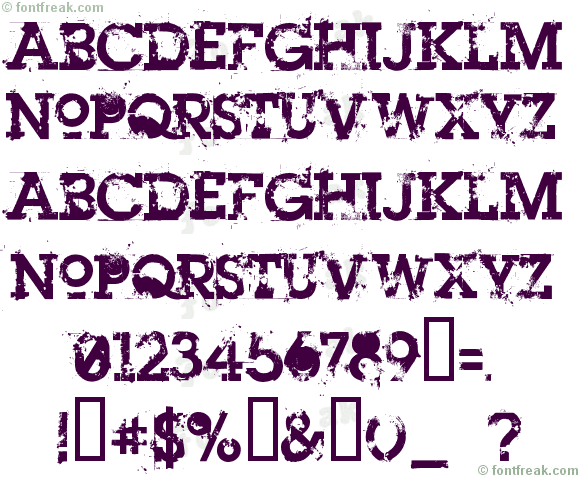
Heroin 07
About Heroin 07
Heroin 07, designed by Clement Nicolle, is a striking display font that falls into the category of decorative typefaces. Characterized by its bold, grunge-inspired aesthetic, this font features a unique combination of uneven stroke weights and a distressed texture that gives it an edgy, urban feel. The letters exhibit a mix of solid and fragmented forms, creating a dynamic visual experience that captures attention. With generous spacing between characters, Heroin 07 ensures readability while maintaining its artistic flair, making it an excellent choice for various creative projects.
This font is particularly well-suited for use cases such as music album covers, where its rebellious nature can resonate with audiences, or for promotional materials for alternative events, allowing brands to convey a sense of authenticity and individuality. It can also shine in fashion lookbooks, where its unique style can enhance the overall aesthetic. Additionally, Heroin 07 can be a great choice for posters and flyers that aim to attract a younger, trend-focused demographic, or even for graphic designers looking to add a distinctive touch to their work.